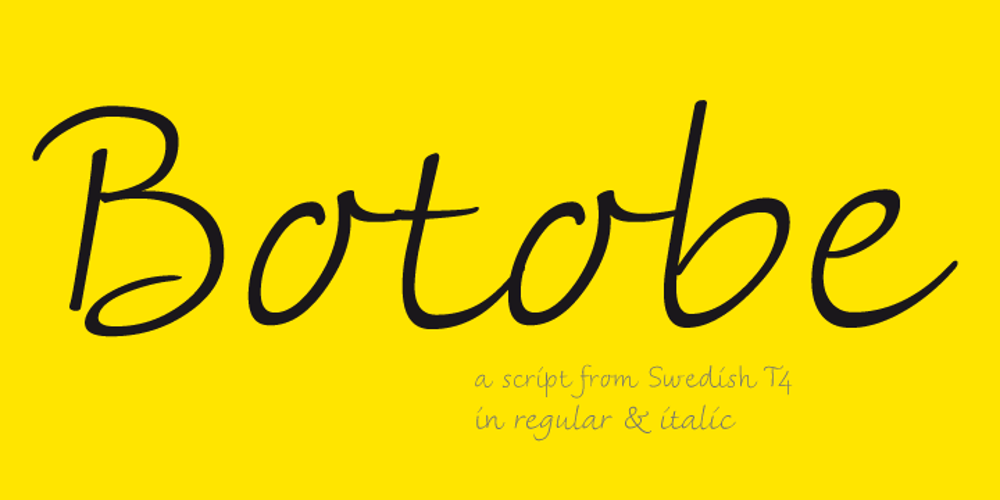
Botobe
Botobe font
Botobe Font Family was designed by Bo Berndal and published by T4 Foundry. Botobe contains 2 styles and family package options. Botobe is a new script from Swedish type designer Bo Berndal and the T4 font foundry. Botobe is a playful and friendly script that has lots of character. It gives text a genuine handwritten style and comes in two different cuts, regular and italic. It is an OpenType creation, for both PC and Mac.